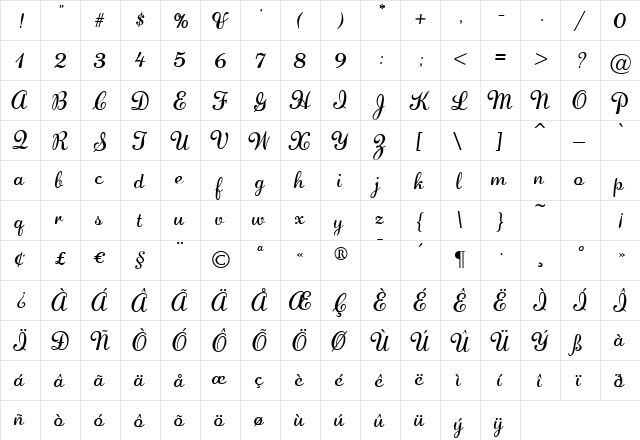
AdageScriptJF Regular
Design Context for AdageScriptJF Typeface
AdageScriptJF flows with the natural rhythm of handwritten lettering, making it ideal for designs that call for warmth and personal expression.
Font Pairing: Combine AdageScriptJF with a simple geometric sans for maximum contrast — the tension between flowing curves and clean structure is a classic typographic pairing.
Pro Tip: Use AdageScriptJF for short runs of text — names, titles, or taglines. Extended body copy in script faces tires the eye quickly.